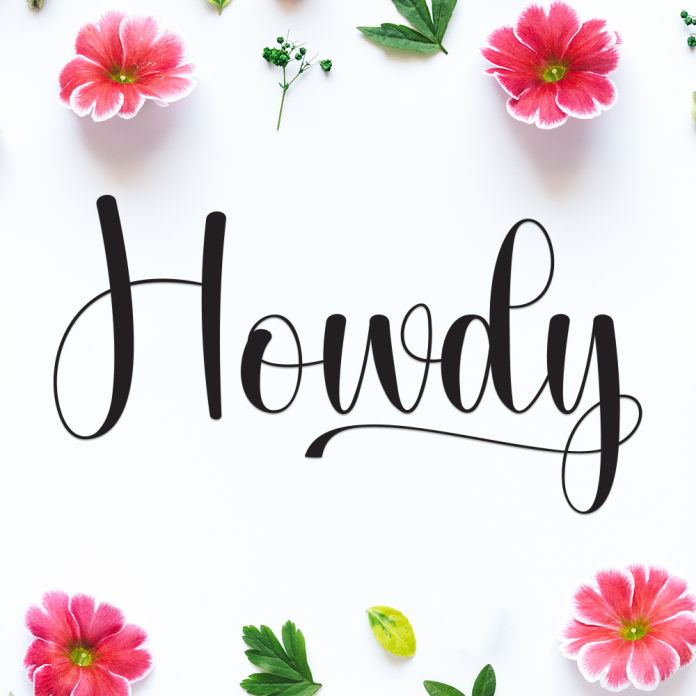
Howdy is a cheerful and approachable handwriting font that radiates warmth and personality. With its casual strokes and relaxed rhythm, it feels like a handwritten note from a friend.
Ideal for greeting cards, social media quotes, branding projects, or personal blogs, Howdy adds a touch of friendliness and authenticity to any design.
Handwritten style with a playful western vibe
Smooth, casual, and easy to read
Great for friendly branding, crafts, and creative layouts
Say “Howdy!” to your audience with a font full of charm and handwritten flair.